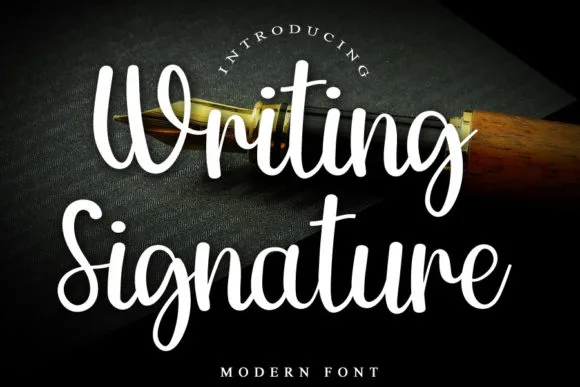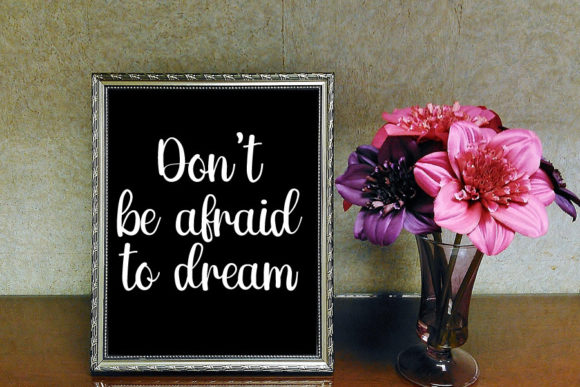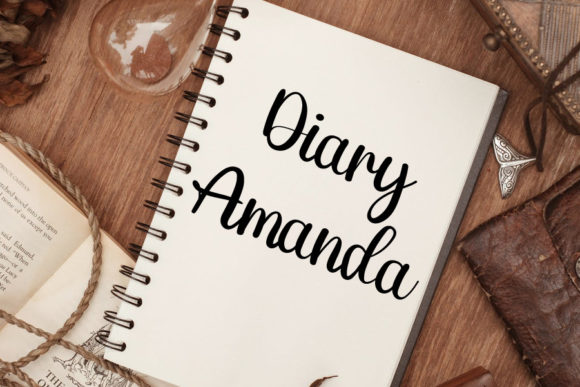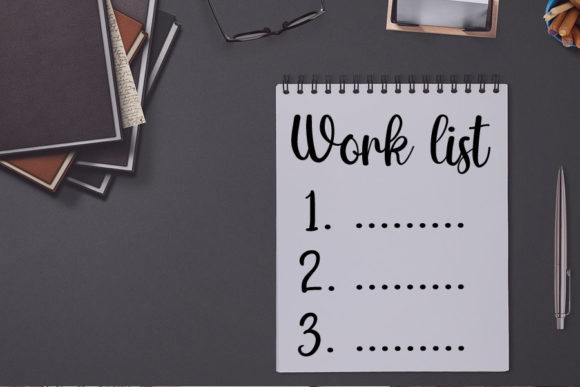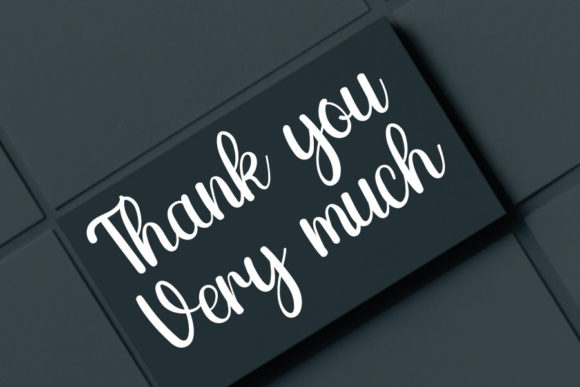
Writing Signature Font
About Writing Signature Font
Writing Signature is a fresh and beautiful handwritten font perfect for Youtube banners, Cover Logo Mockups, Wedding Invitations, Id Cards, Flyers, and Crafts. By using this font, your business will progress and develop. This font is simple and unique.